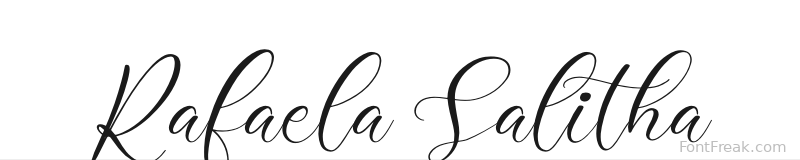
Rafaela Salitha Italic
Rafaela Salitha
Rafaela Salitha Italic is a stunning script font designed by Perspectype Studio, perfect for those seeking an elegant touch in their typography. This font falls into the script category, characterized by its fluid, cursive strokes that evoke a sense of sophistication and artistry. The intricate design features a moderate stroke weight with delicate contrasts, enhancing its graceful appearance. The spacing between letters is thoughtfully considered, ensuring readability while maintaining a flowing aesthetic, making it suitable for a variety of applications.
This font shines in several specific use cases. It is an excellent choice for wedding invitations, where its romantic flair can set the perfect tone for the occasion. Additionally, Rafaela Salitha Italic works beautifully on restaurant menus, offering a refined look that can elevate the dining experience. It is also suitable for branding projects, particularly for boutique shops or artisanal businesses looking to convey a sense of craftsmanship and elegance. Moreover, content creators can utilize this font in social media graphics, adding a touch of charm to promotional posts or announcements.
Targeted primarily at graphic designers, small business owners, and content creators, Rafaela Salitha Italic can enhance any project that requires a personal and stylish touch. It allows users to express creativity and sophistication in their designs, making it a versatile asset in any designer's toolkit.
What sets the Rafaela Salitha Italic apart is its ability to blend elegance with warmth, making it an inviting choice for those who wish to make an impression. With a "Rafaela Salitha Italic font free download" available, it offers accessibility without compromising on quality, making it an ideal addition to your font library.